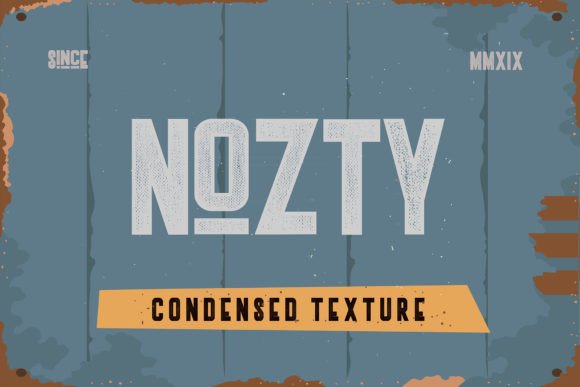
Nozty Textured Font
Nozty Textured Font a tall Ultra condensed sans serif . Nozty is the perfect fit. It’s a memorable, fashionable, strong and elegant typeface. You can mix and match the rounded and the Regular style to create something very fresh and modern. Awesome right? The vintage style is the bad boy of the collection, old but still look very modern. This fonts is perfect for headlines, quotes, Logo, Web, magazine covers, editorial design, print posters, signage, window shop design, and much more.